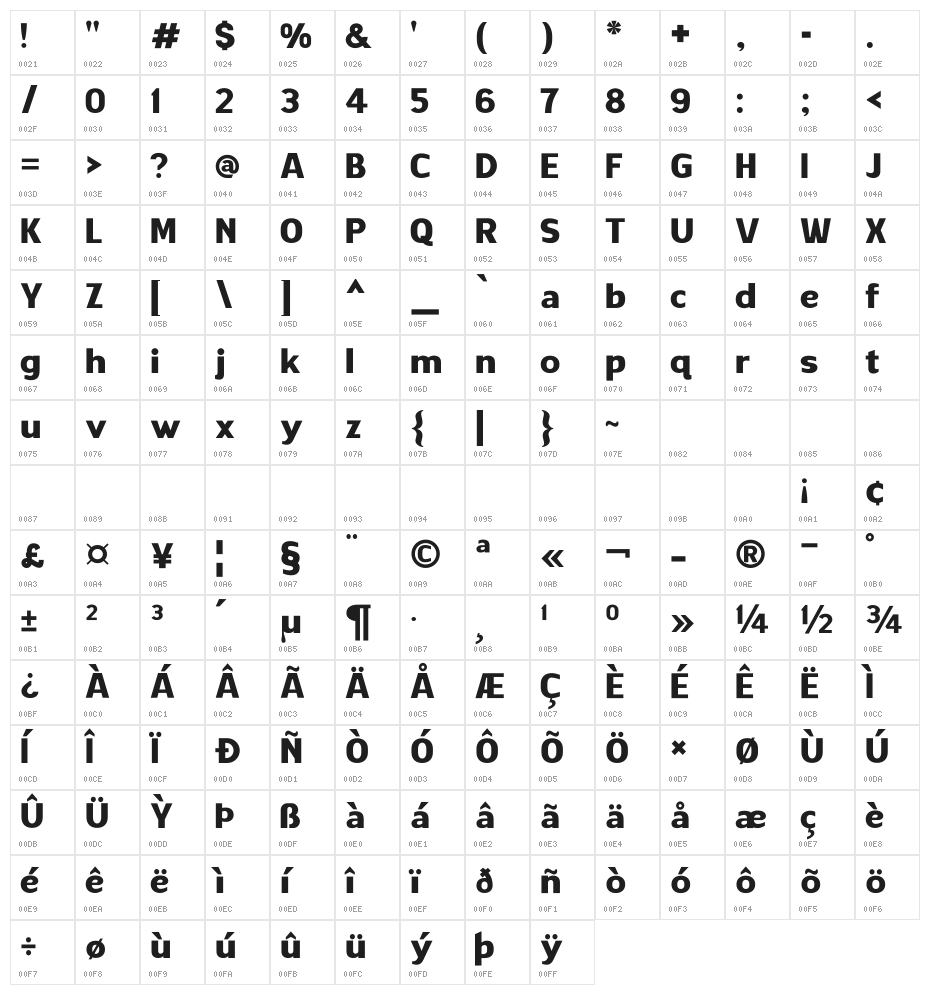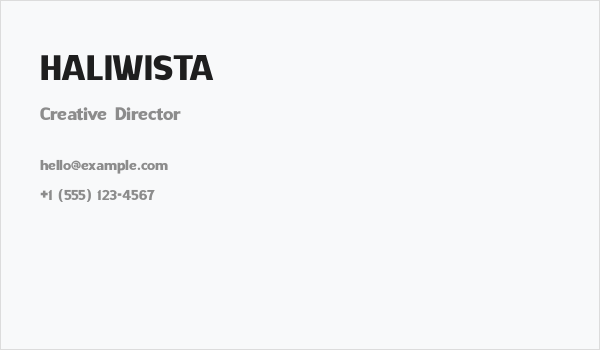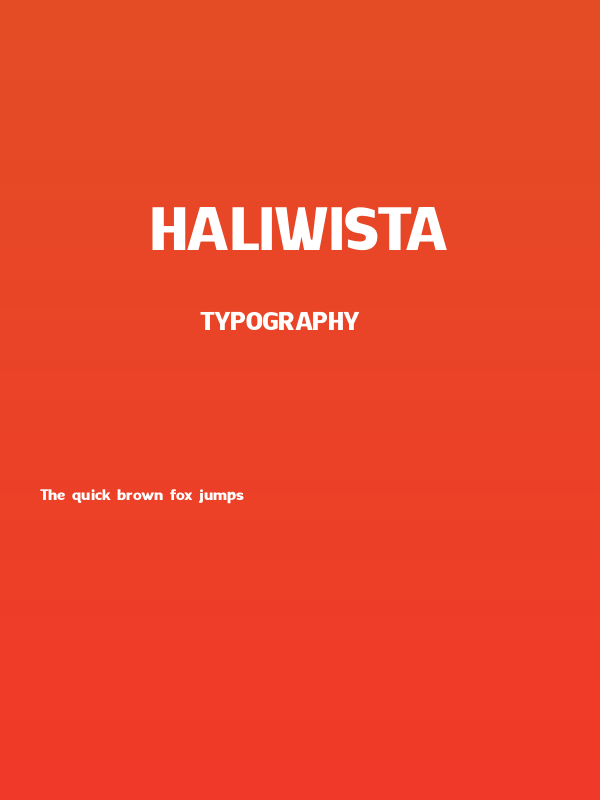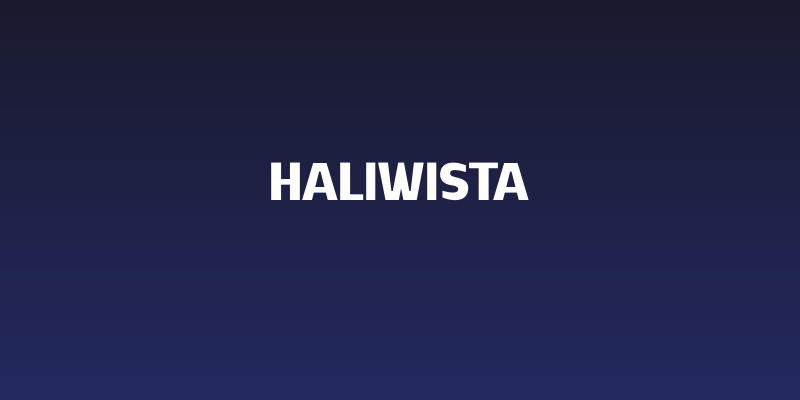
HALIWISTA Font
HALIWISTA Description
This font is a bold, sans-serif typeface characterized by its strong, geometric shapes and uniform stroke widths. The uppercase letters are robust and commanding, while the lowercase letters maintain a consistent style that complements the uppercase. The numerals are clear and legible, making them suitable for various applications. Special characters are well-defined, enhancing the font's versatility. The overall design is modern and impactful, ideal for making a statement in any design project.
| Use Case | Headlines, Logos, Advertising |
| Proposed Projects | Ideal for branding, advertising, headlines, and digital media where a strong, modern presence is desired. |